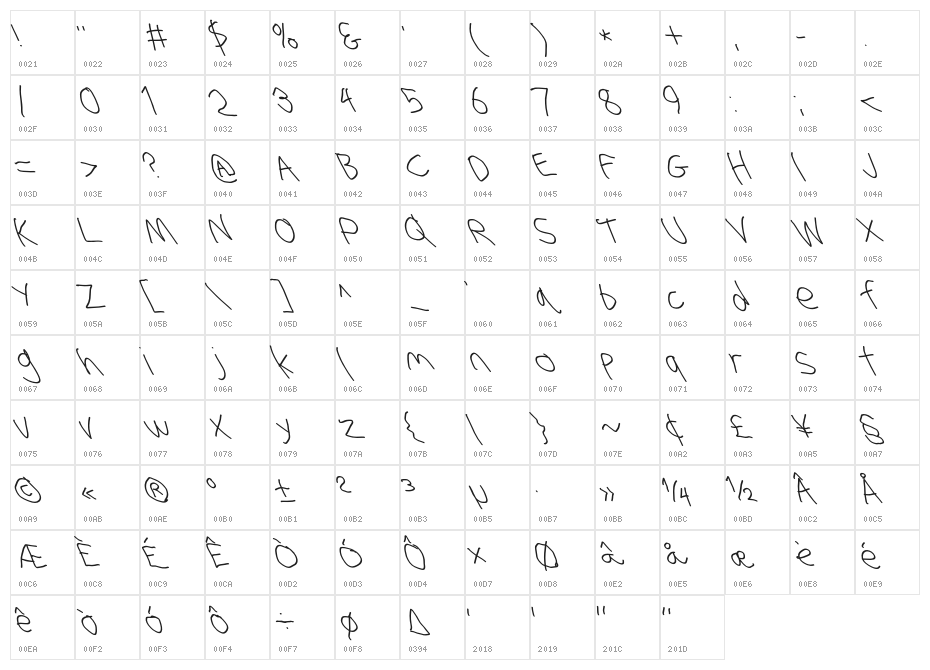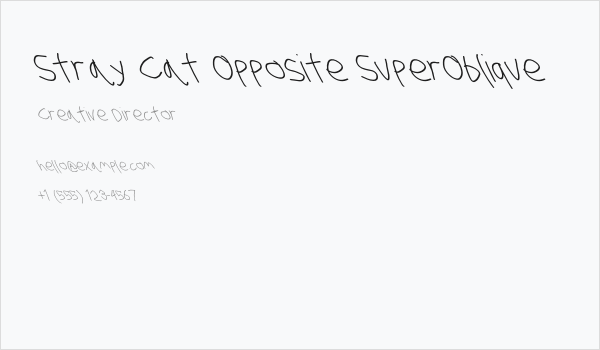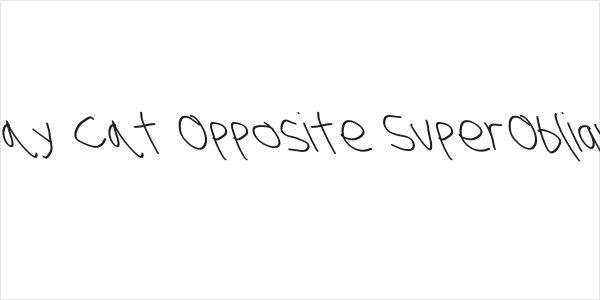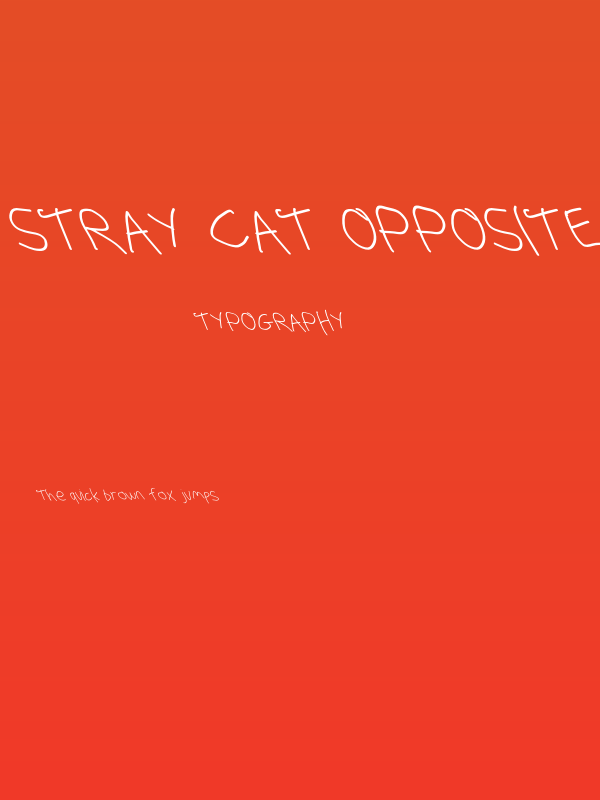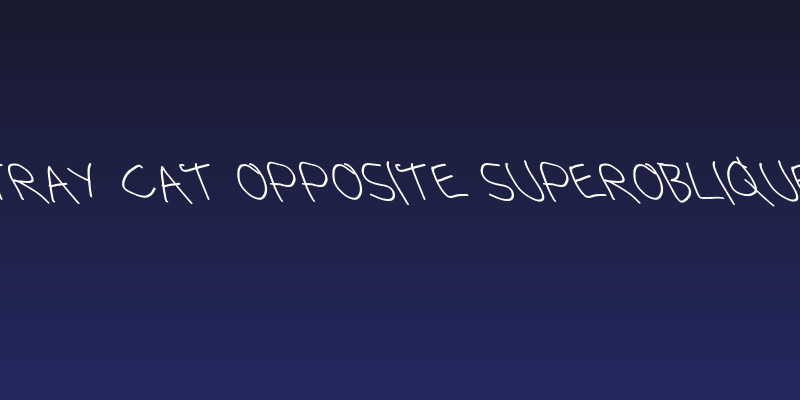
Stray Cat Opposite SuperOblique Font
Stray Cat Opposite SuperOblique Description
This font exudes a playful and informal vibe, characterized by its handwritten style. The letters are slightly slanted, giving an oblique appearance that adds a dynamic feel. The strokes are uneven, mimicking a natural, hand-drawn look, which enhances its casual and approachable nature. The characters are loosely spaced, providing a relaxed and airy composition. The font includes a full set of uppercase and lowercase letters, numbers, and a variety of special characters, making it versatile for various uses. Its quirky and spontaneous design makes it ideal for projects that require a personal touch.
| Proposed Projects | Ideal for greeting cards, personal blogs, children's books, and creative branding projects. |